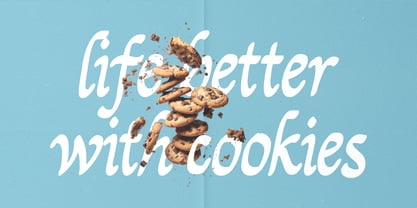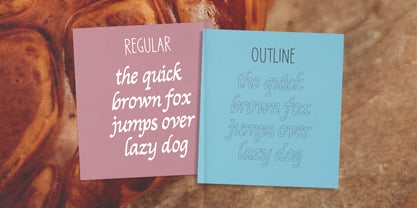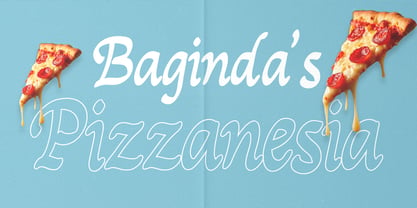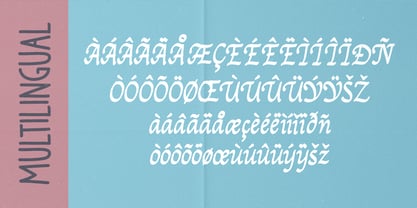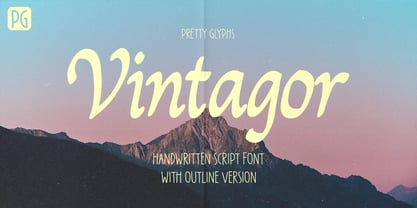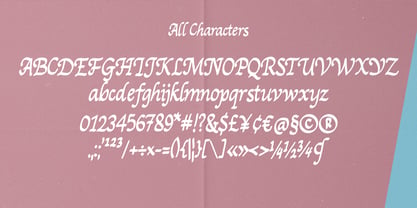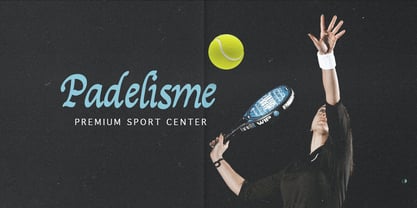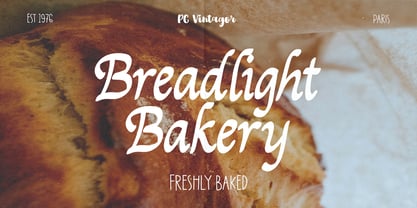
PG Vintagor
PG Vintagor is a charming handwritten script font that captures a warm, nostalgic feel with a smooth and natural flow. Its soft curves and playful strokes make it perfect for branding, logos, packaging, quotes, and creative projects that need a personal, timeless touch. Complete with an outline version, it gives you extra flexibility to create standout designs effortlessly.